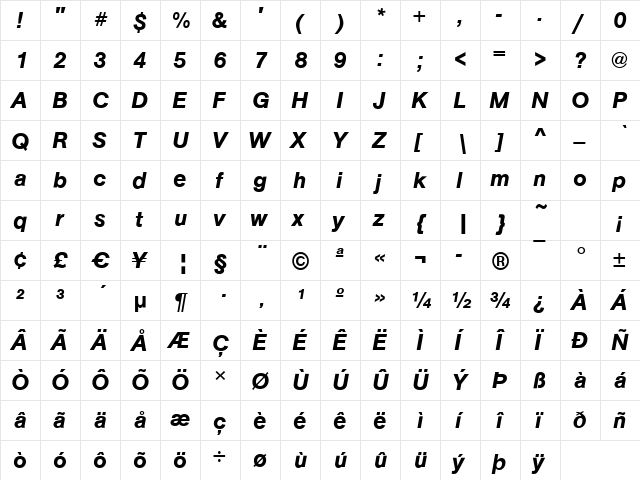
Arezzo DemiItalic
Design Context for Arezzo Typeface
Arezzo takes a measured approach to typography — its balanced proportions and neutral character make it a reliable workhorse for both digital and print work. The dynamic lean of this cut emphasises speed and emphasis in any layout.
Pro Tip: Use Arezzo for emphasis, pull quotes, and subheadings where its slanted energy can add rhythm to the layout.